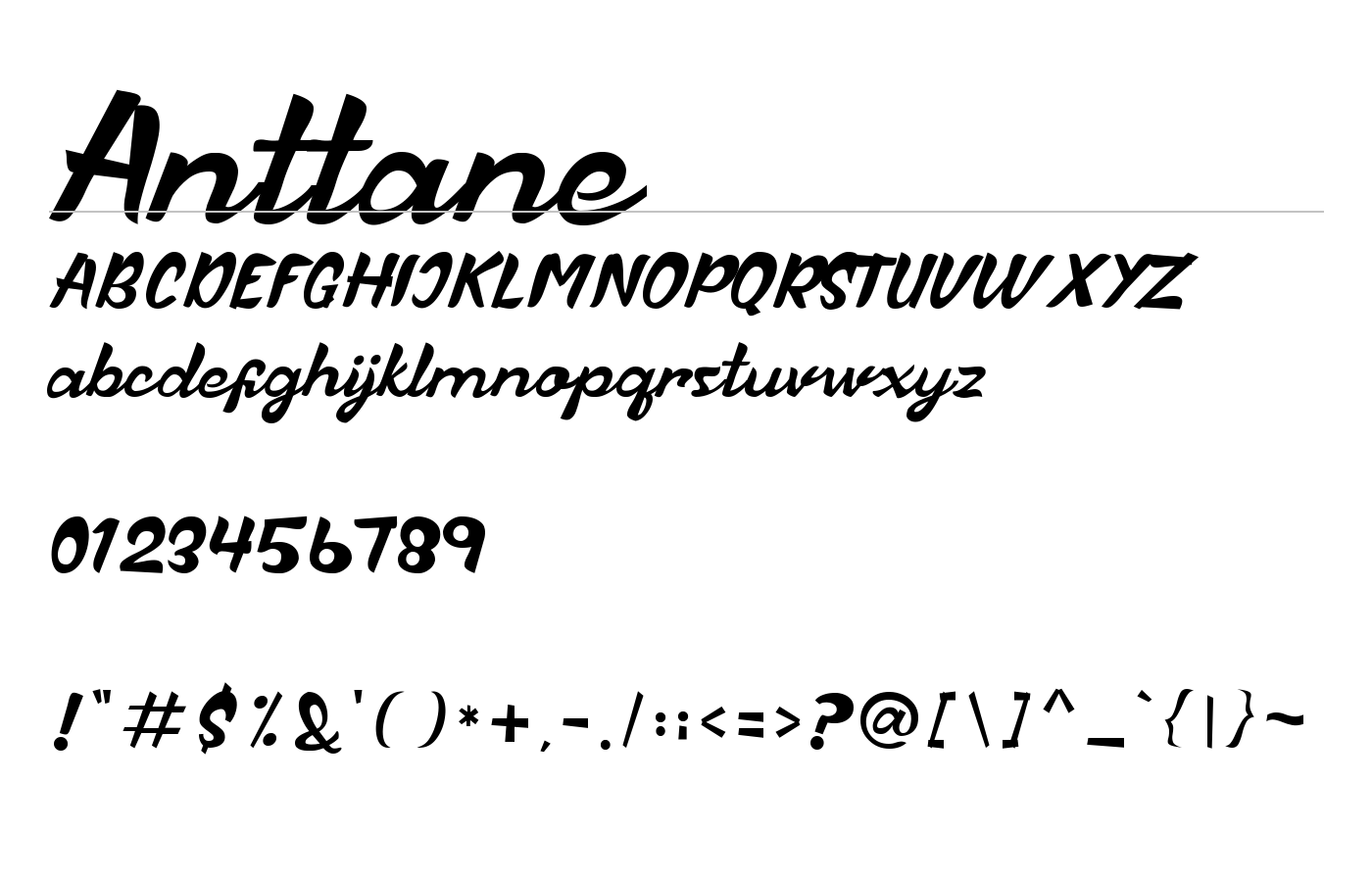
Anttane is a bold, casual script font with a slightly condensed width and medium x-height, giving it a lively and approachable feel. Its smooth, brush-like strokes and friendly, rounded letterforms make it ideal for branding, playful headlines, and creative packaging where an energetic yet readable style is needed. This font works well in designs that want to convey warmth and personality with a touch of handwritten charm.
Anttane Font